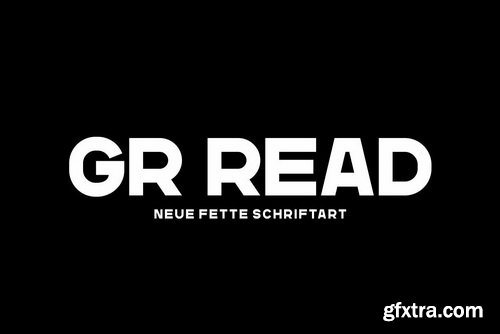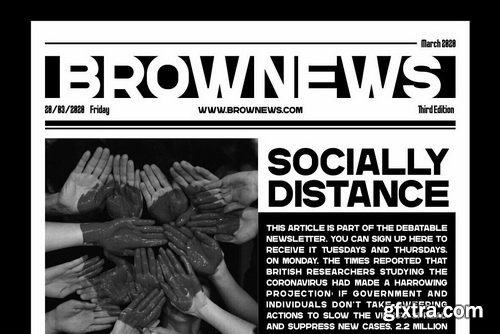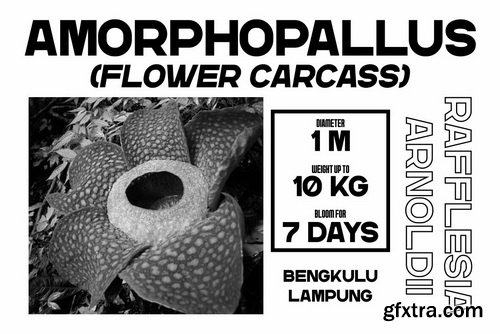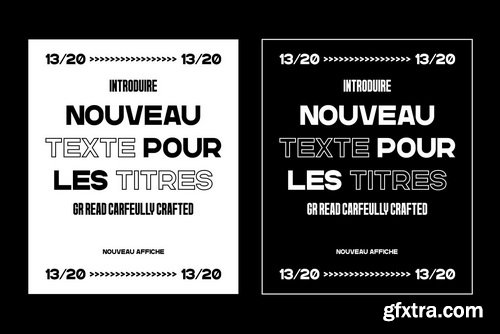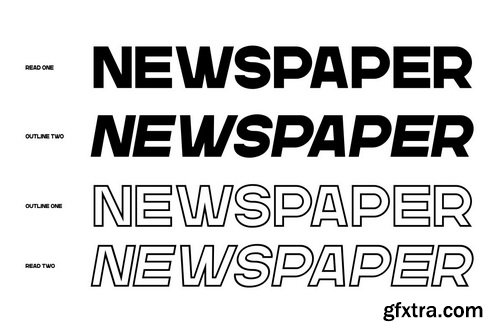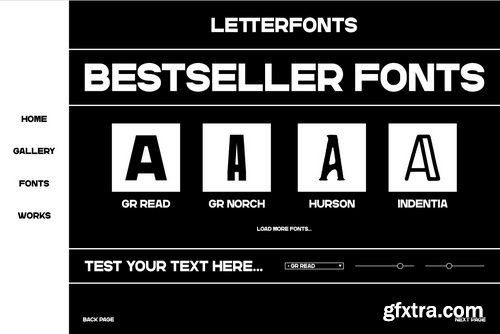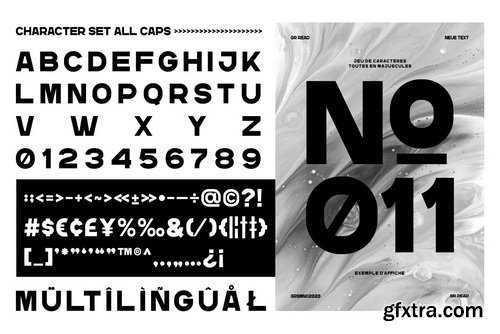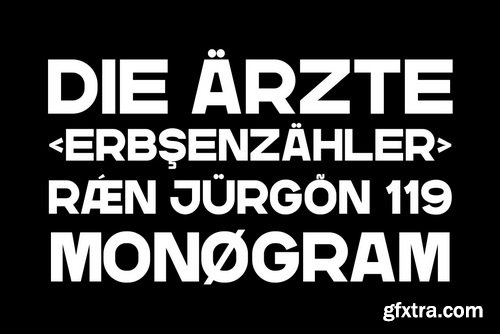
GR Read Font Family
GR Read is a very cool font for headline designs with a bold and bold theme. With a strong display and clean nodes make text in the design become more character and great. Inspired by headline trends in a poster or magazine today. So that with a firm and very modern style makes your design better! This font is formed from the headline display font of a very careful title. GR Read has about 350 flying machines. Suitable for all graphic design projects, prints, logos, posters, t-shirts, packaging, website, ticket and applies to several types of graphic design. Especially for the use of a title! Very suitable! GR Read is compatible with any software without pain, especially in headlines with GR Norch pairing.